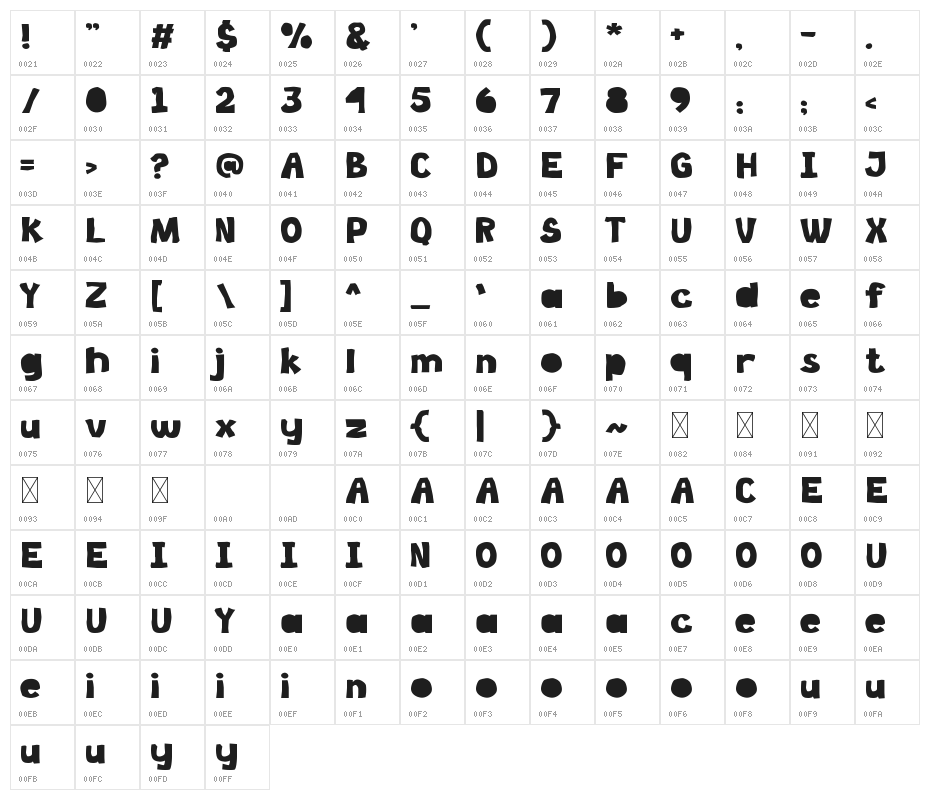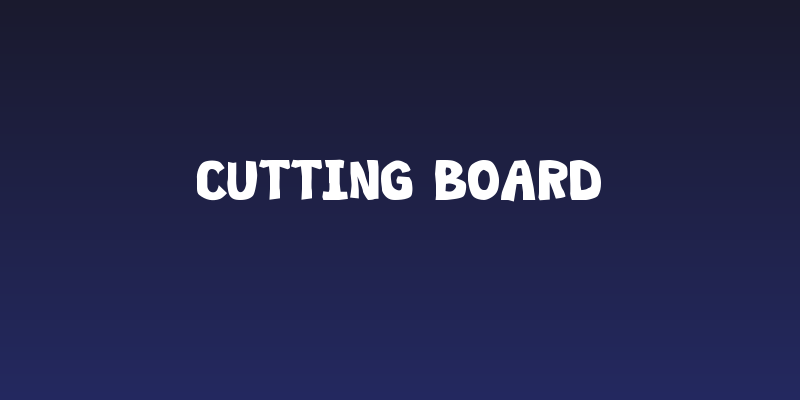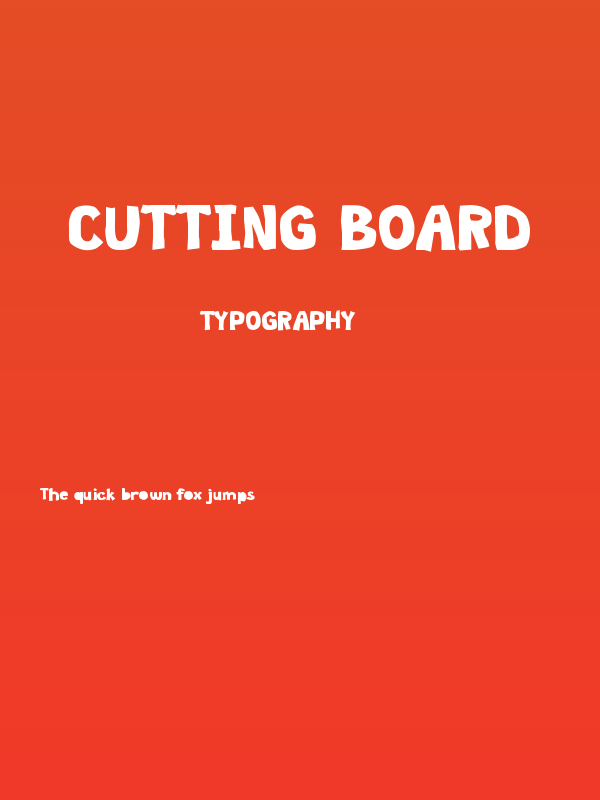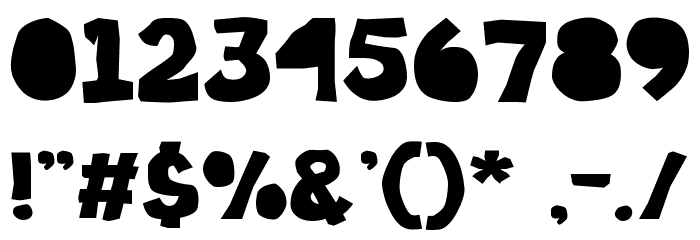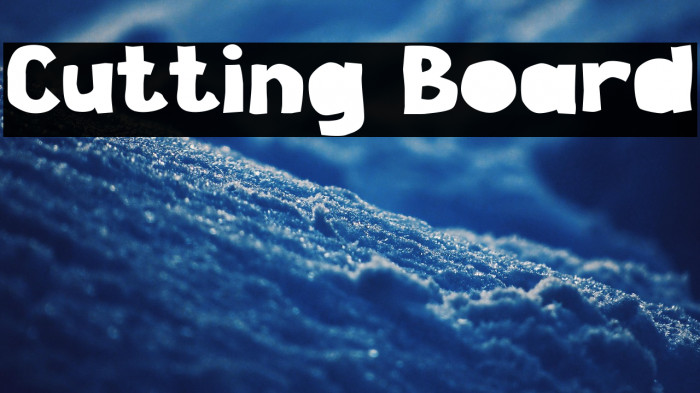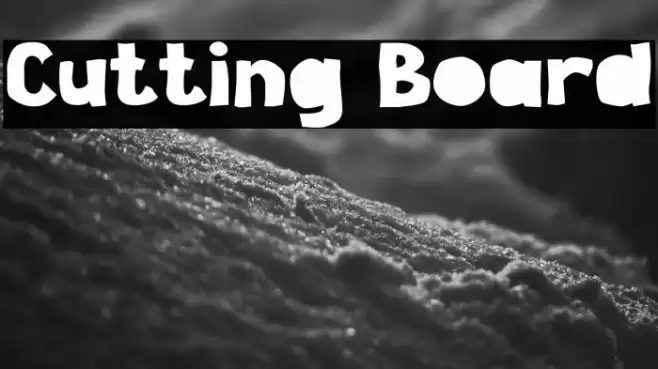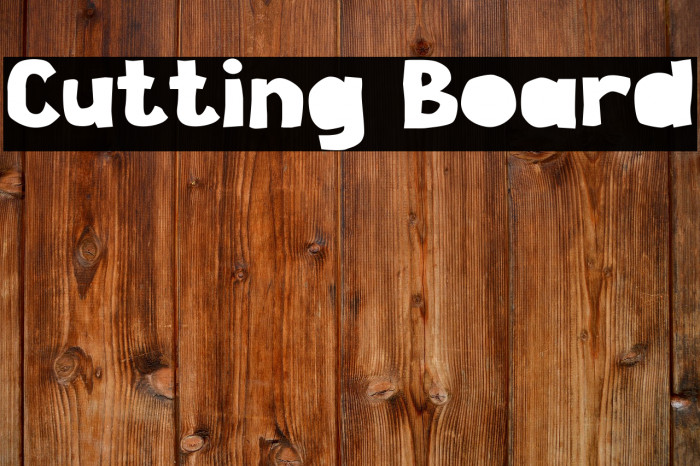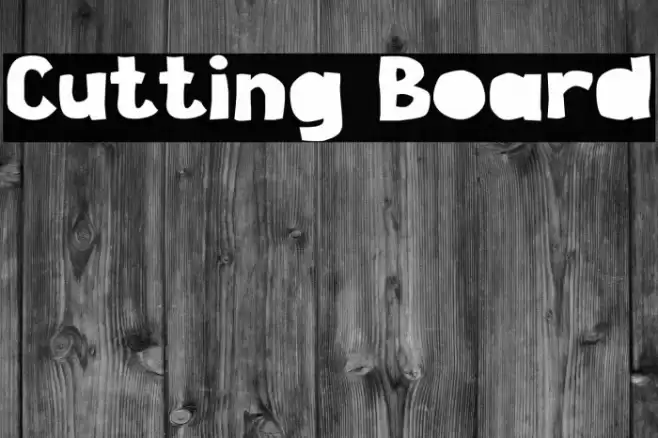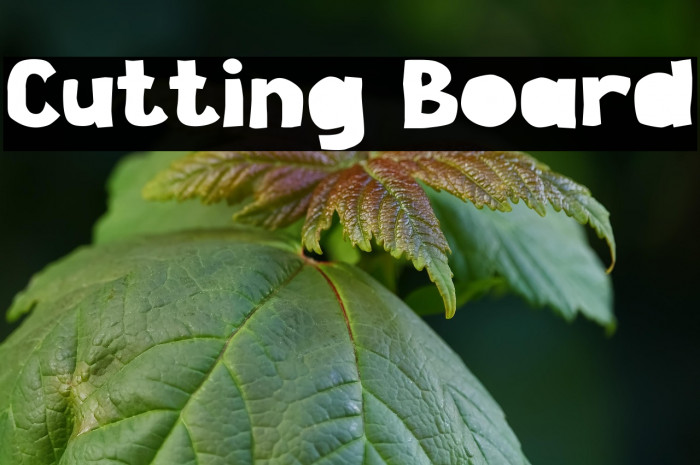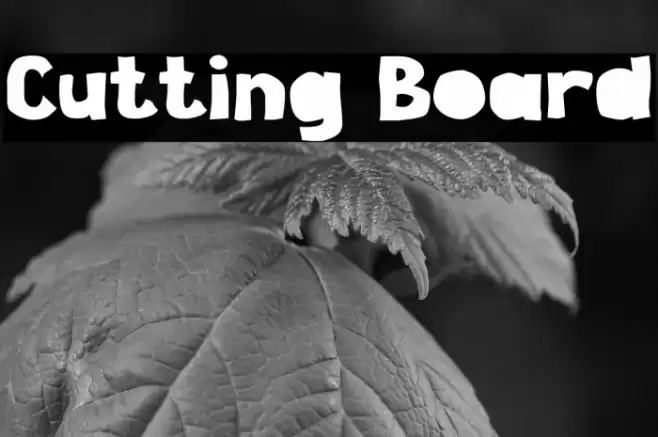
Cutting Board Font
This font features a bold and playful style with a hand-cut appearance, reminiscent of paper cutouts. The characters are irregular and quirky, giving a sense of movement and energy. The uppercase letters are bold and slightly uneven, while the lowercase letters maintain a consistent playful style. Numbers and special characters follow the same whimsical design, making the font ideal for creative and informal projects. The overall look is both fun and approachable, suitable for designs that aim to convey a sense of joy and creativity.
| Overall Style | Playful, Creative |
| Proposed Projects | Ideal for children's books, playful branding, posters, and creative invitations. |